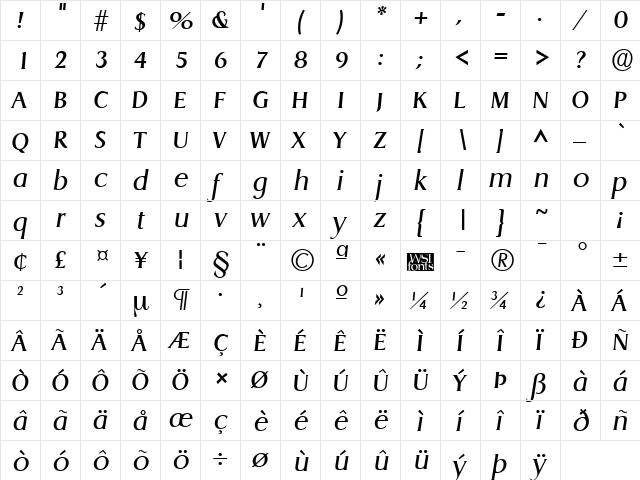
Griffon Italic
Design Context for Griffon Typeface
Griffon offers clean, dependable letterforms without strong stylistic allegiance, making it a practical choice for designers who need flexibility. The dynamic lean of this cut emphasises speed and emphasis in any layout.
Pro Tip: Use Griffon for emphasis, pull quotes, and subheadings where its slanted energy can add rhythm to the layout.